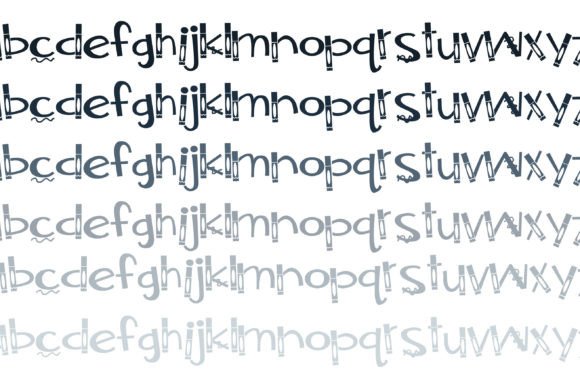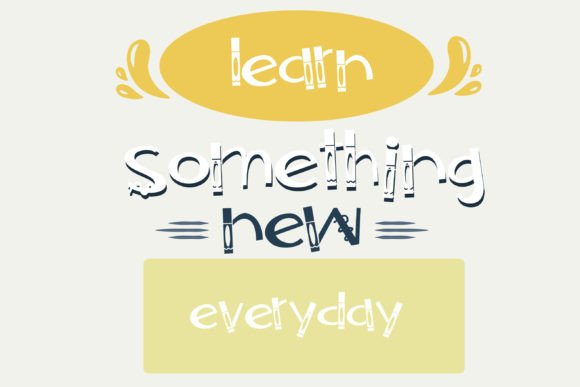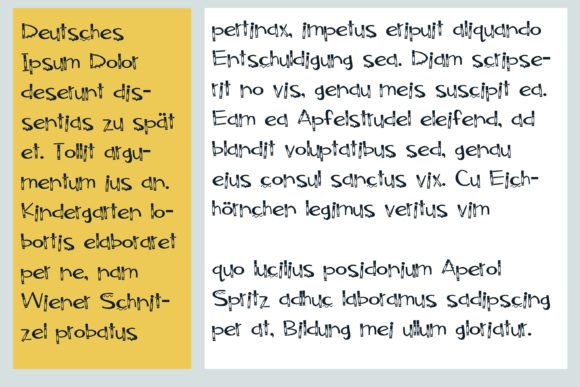
Introduction to Magic Marker Font
Remember the joy of doodling with markers as a child? The way the vibrant ink flowed across the page, creating unique and playful patterns? That same sense of creativity and freedom can now be brought to your design projects with the Magic Marker Font. This charmingly hand-crafted print typeface is a design resource that’s sure to add a touch of whimsy and authenticity to your work.
Whether you’re a seasoned designer or a creative enthusiast, the Magic Marker Font is a valuable tool that can elevate your projects to the next level. With its high-quality design and transparent background, it’s perfect for crafting invitations, scrapbooking, or adding a personal touch to your designs. And the best part? It’s available for free download, making it an accessible design resource for anyone looking to add a little magic to their creative project.
Key Features of Magic Marker Font
• High-quality, hand-drawn design suitable for creative projects
• Includes a range of characters, including uppercase and lowercase letters, numbers, and symbols
• Perfect for use in logos, graphics, and other creative projects where a unique, handwritten style is desired
Honest Review: Magic Marker Font
I recently stumbled upon the Magic Marker Font, a free design resource that caught my attention. This high-quality font is perfect for creative projects that need a unique, playful touch. One of its standout features is the transparent background, which makes it easy to overlay on any image or design element.
Here are some of the things that work well with the Magic Marker Font:
• Its fun, childlike aesthetic is great for branding and marketing materials, especially for children’s products or education-related projects.
• The font is highly customizable, allowing you to adjust the color, size, and style to fit your design needs.
• ⚠️ The font may not be suitable for formal or professional projects, as its playful nature may not convey the desired level of sophistication.
Overall, I’m impressed with the Magic Marker Font. Its unique design and high quality make it a valuable addition to any designer’s toolkit. While it may have some limitations, it’s a great resource for creative projects that require a fun and playful touch.
Introduction to Magic Marker Font
Magic Marker Font is a high-quality design resource perfect for adding a creative touch to your projects. This free download features a transparent background, making it easy to use in various design applications.
Magic Marker Font is perfect for a variety of creative projects, including:
• Social media graphics
• Presentations
• Logos
• Typography projects
Tips for Getting the Most Out of Magic Marker Font
To get the most out of Magic Marker Font, experiment with different font sizes, colors, and combinations to create unique and eye-catching designs.